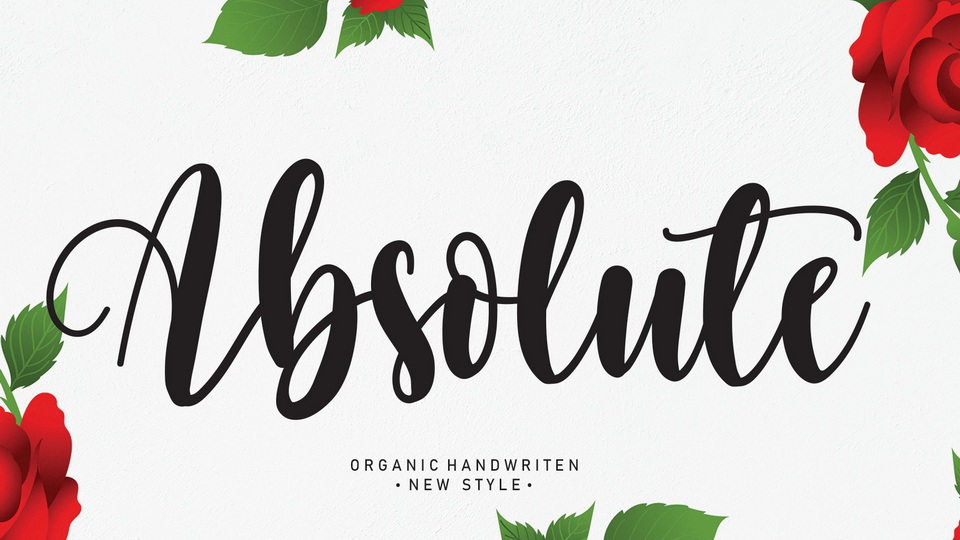
Download Absolute font, a magical script typeface carefully created with a touch of elegance. Absolute font is perfect for your creative ideas, both formal and informal.